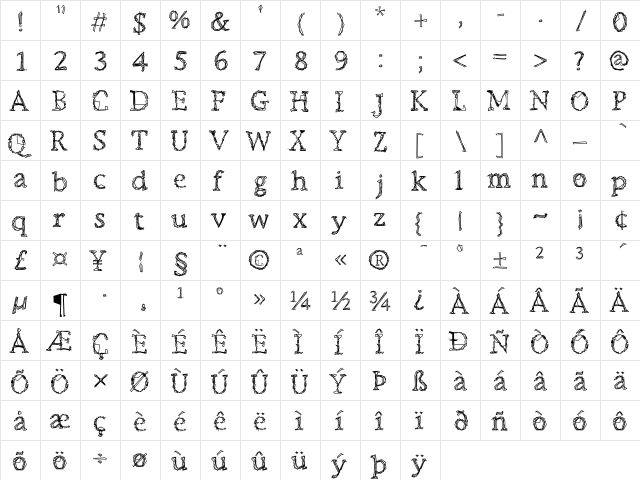
Citore Regular
Design Context for Citore Typeface
Citore is a composed and adaptable typeface that performs quietly and consistently across a wide range of design contexts.